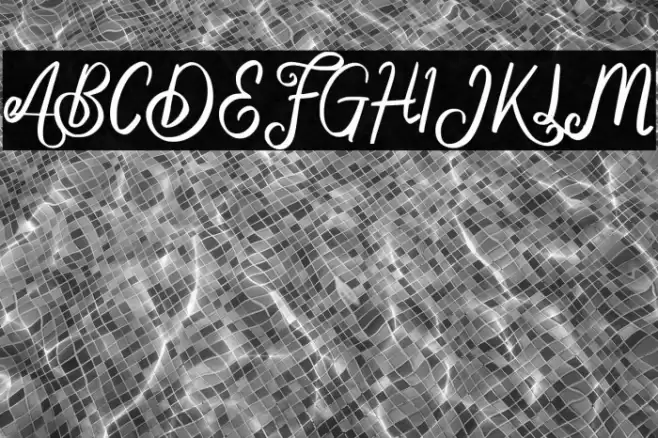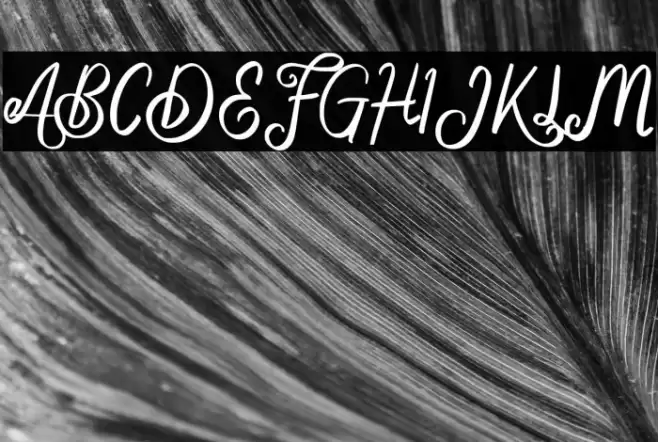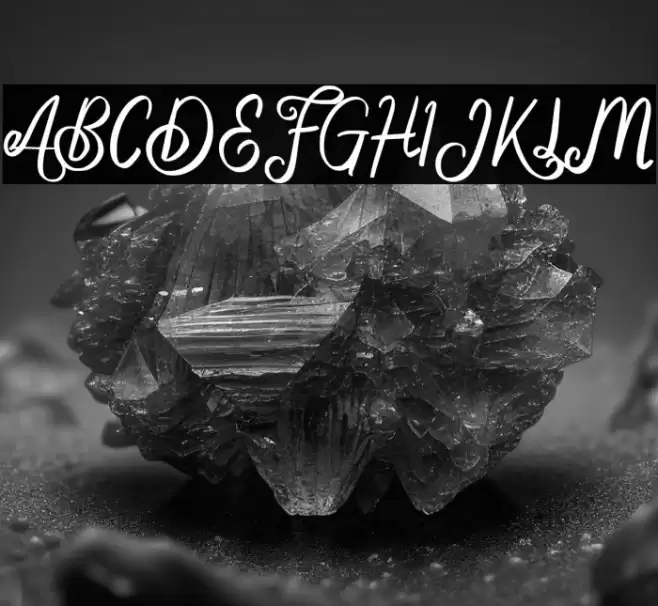
DelphinaFREE Font
DelphinaFREE Description
This font features an elegant and flowing script style that exudes a sense of sophistication and charm. The uppercase letters are characterized by their intricate loops and flourishes, creating a sense of movement and grace. The lowercase letters maintain this fluidity, with smooth, connected strokes that enhance the overall cohesiveness of the design. The font's playful yet refined aesthetic makes it suitable for a variety of creative projects. Its unique style is both eye-catching and versatile, making it a great choice for those looking to add a touch of elegance to their work.
An elegant and flowing script font with intricate loops and flourishes from Uncategorized fonts.
- Proposed Projects: Ideal for wedding invitations, greeting cards, branding, and elegant logos.
- Overall Style: Elegant, Decorative
- Use Case: Logos, Invitations, Decorative text